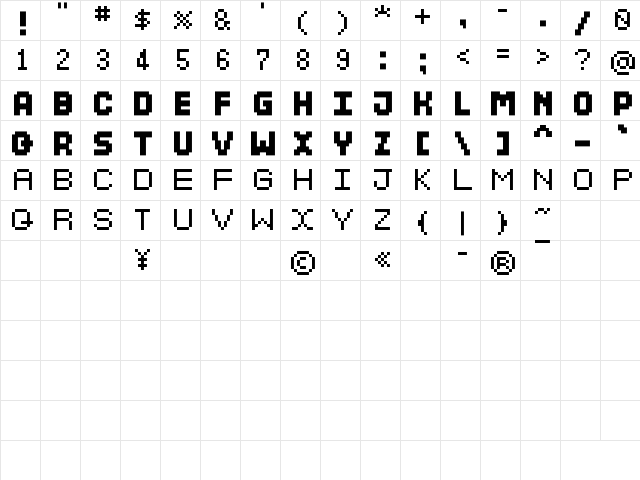
DOSUKOI Regular
Design Context for DOSUKOI Typeface
DOSUKOI takes a measured approach to typography — its balanced proportions and neutral character make it a reliable workhorse for both digital and print work.